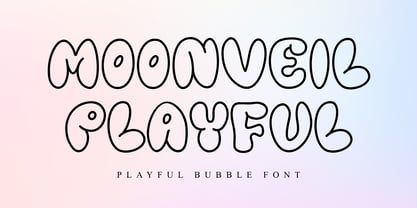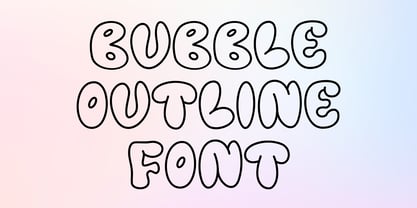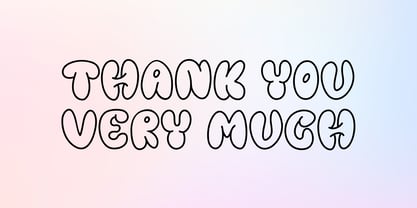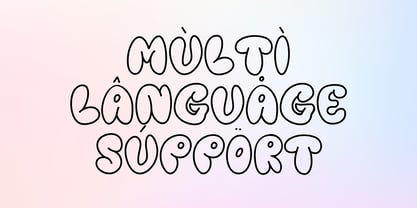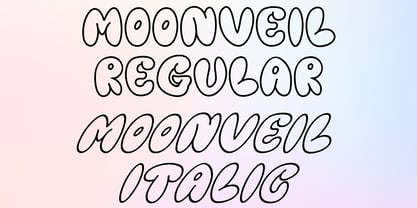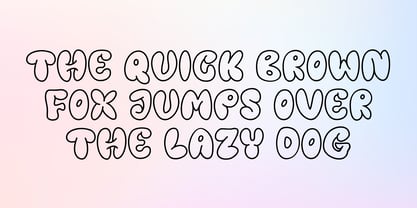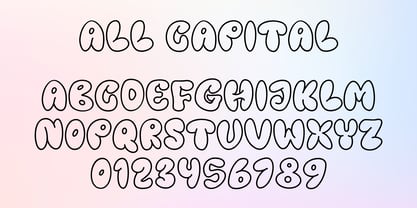
Moonveil Playful
by Letterafandi Studio
The Moonveil Playful Font Family was designed by Ahmad Afandi and published by Letterafandi Studio. Moonveil Playful contains 2 styles and family package options. More about this family
Moonveil Playful is a cute and charming bubble-style font with a soft, rounded look and a strong playful personality. Its smooth curves and hand-drawn feel create a warm, friendly, and slightly dreamy vibe—perfect for designs that need to stand out while staying fun and approachable. This font works beautifully for lo-fi visuals, children’s designs, creative branding, posters, and YouTube thumbnails. The clean outline keeps it highly readable, while its unique shapes add a distinctive and eye-catching touch. Perfect for: YouTube content & lo-fi visuals Posters & social media designs Creative branding projects Kids & educational designs Stickers, merchandise, and packaging Bring a fun and cozy atmosphere to your designs with Moonveil Playful ✨
Designers: Ahmad Afandi
Foundry: Letterafandi Studio